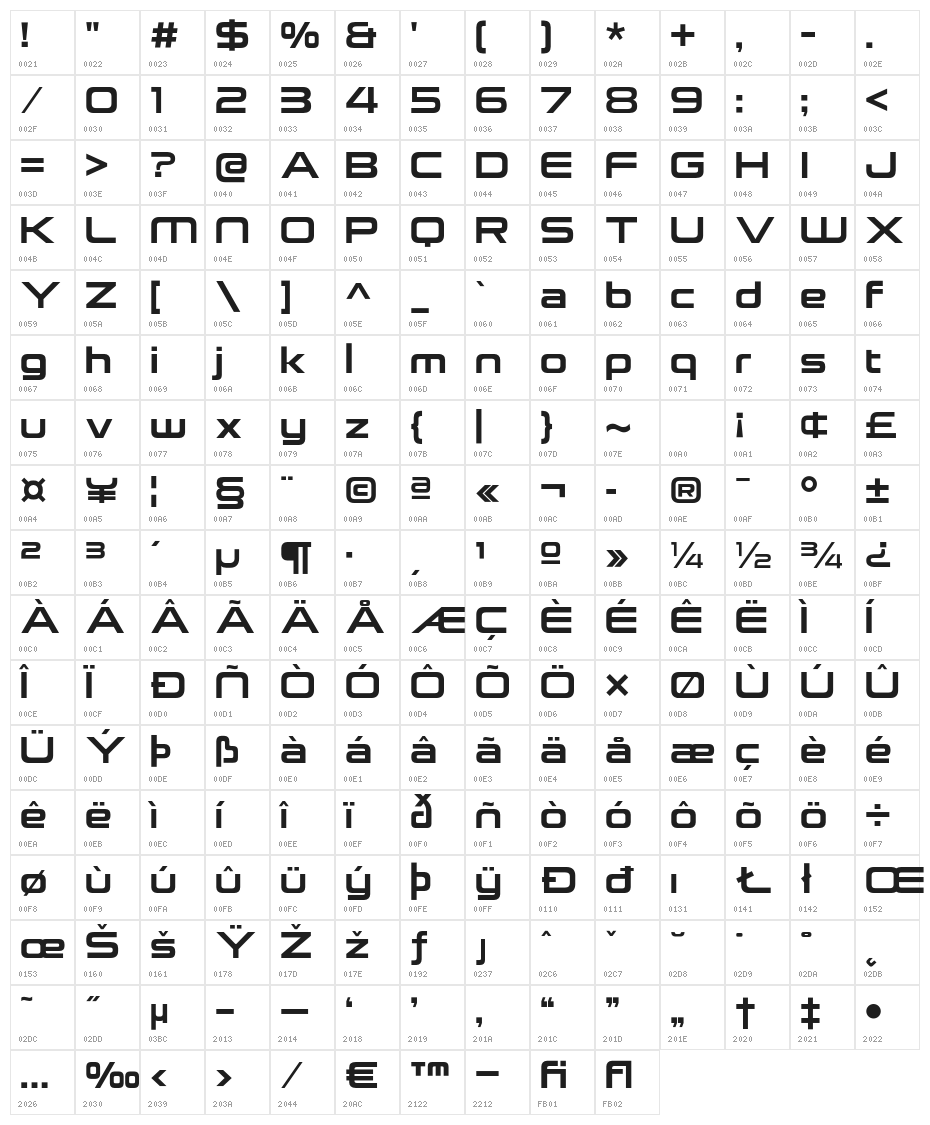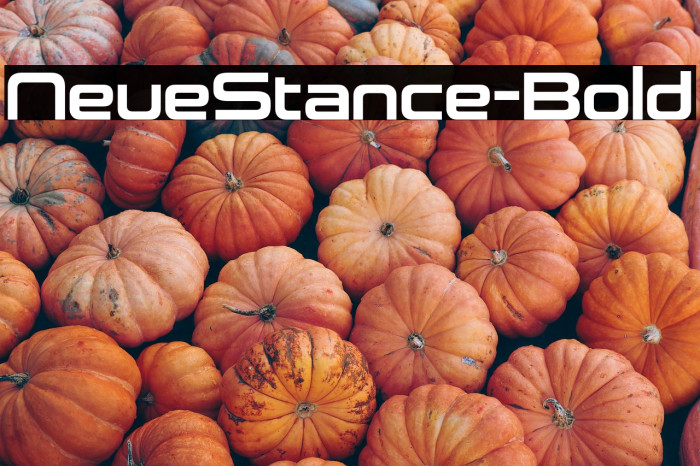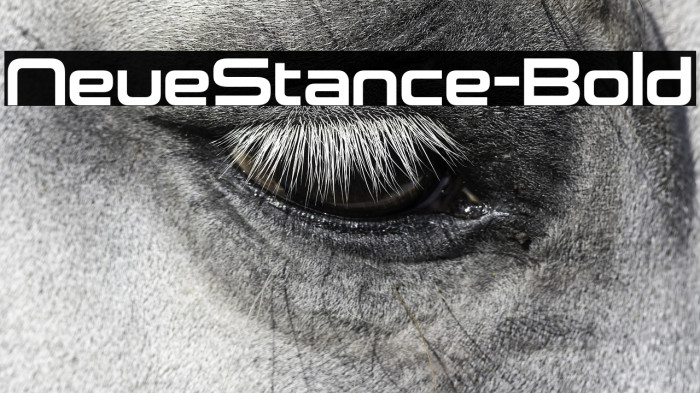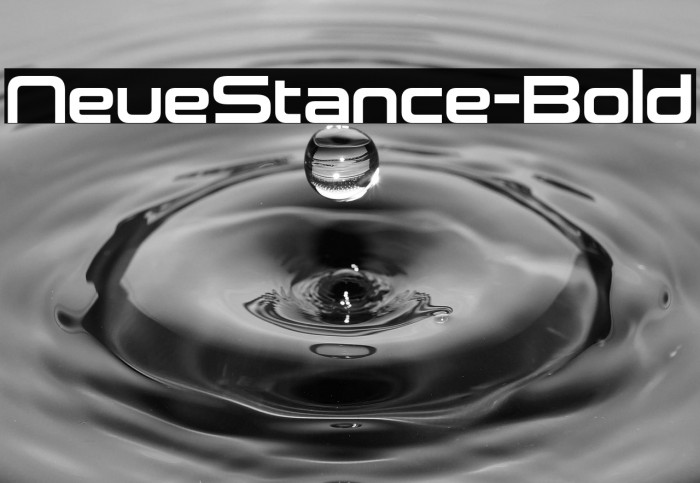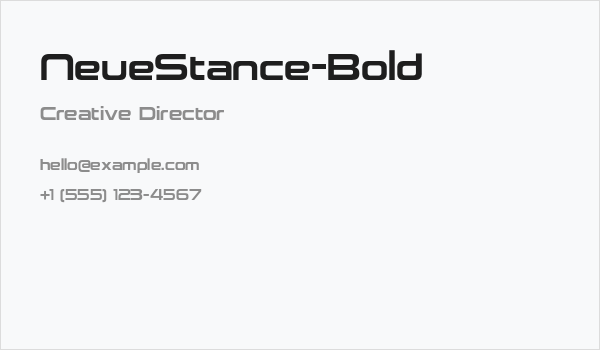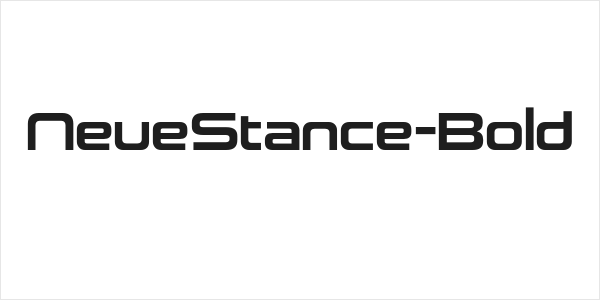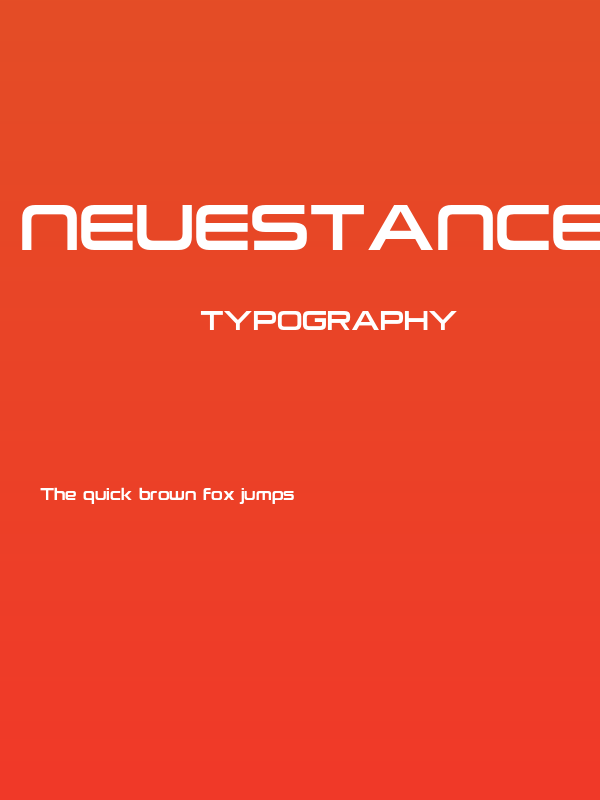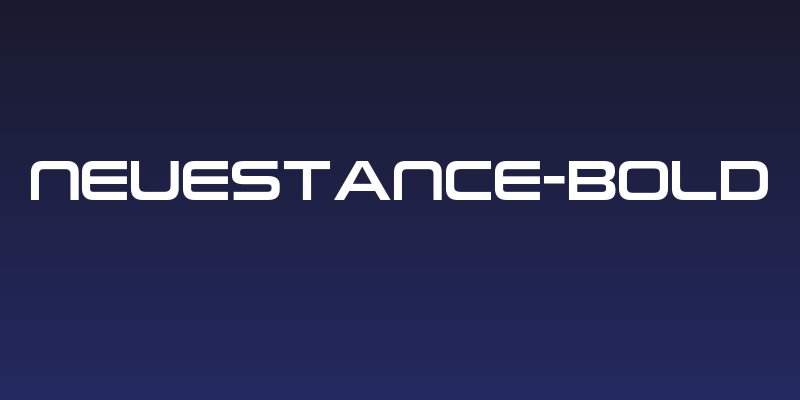
NeueStance-Bold Font
NeueStance-Bold Description
This font exhibits a modern and sleek design with a bold presence. The characters are well-defined with a geometric structure, offering a clean and contemporary look. The uppercase and lowercase letters maintain a consistent style, with smooth curves and sharp angles that enhance readability. The numerals and special characters are designed to complement the overall aesthetic, making it versatile for various applications. The font's bold weight and normal width contribute to its strong visual impact, suitable for both digital and print media.
| Proposed Projects | Ideal for branding, advertising, digital interfaces, and print media where a modern and bold statement is needed. |